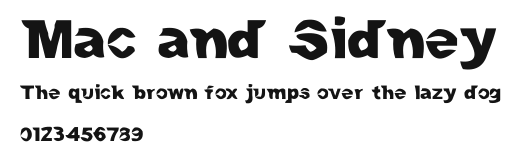
• Font Name: Mac and Sidney
• Full Font Name: Mac and Sidney
About Mac and Sidney.ttf
Mac and Sidney.ttf is a modern, elegant sans-serif font designed for ultimate readability and visual harmony. Perfect for branding, headlines, web design, and print materials.